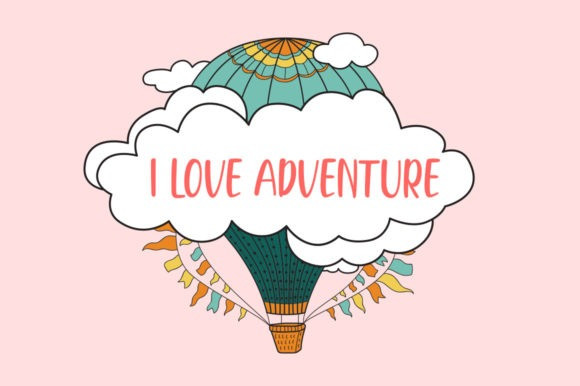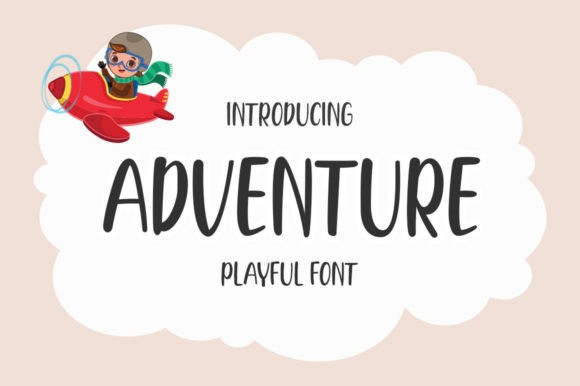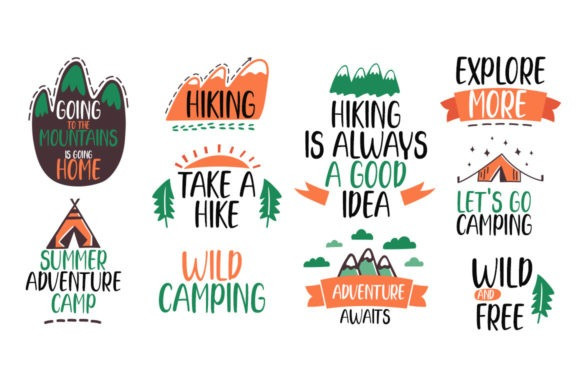
Adventure Typeface
Adventure Typeface, is a simple and playful display font. It can be used for various purposes such as logos, headings, t-shirts, letterhead, signage, labels, news, posters, badges and so much more.